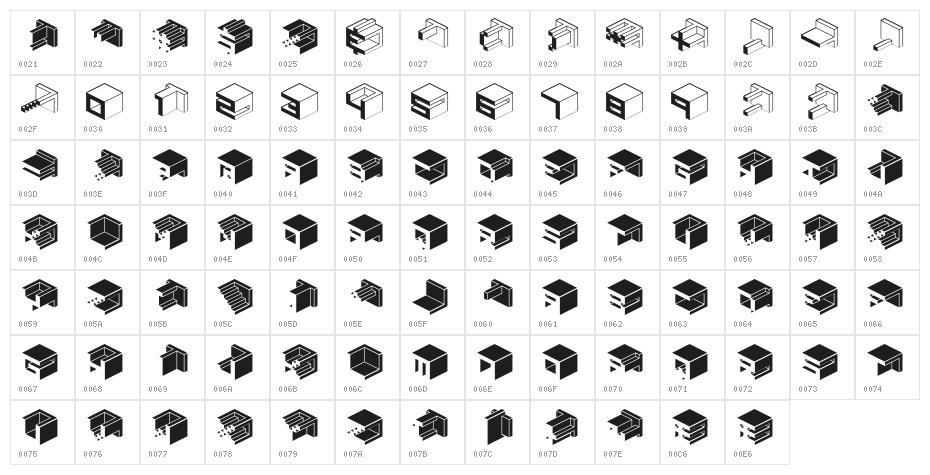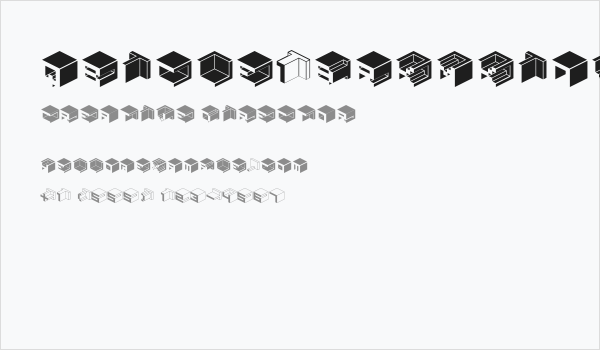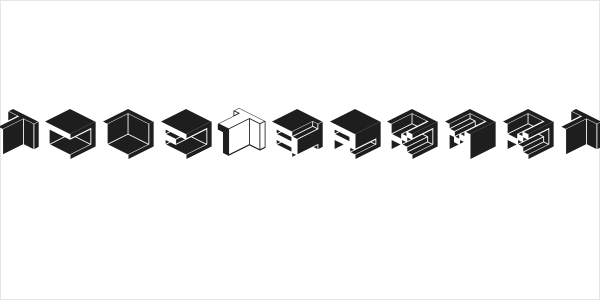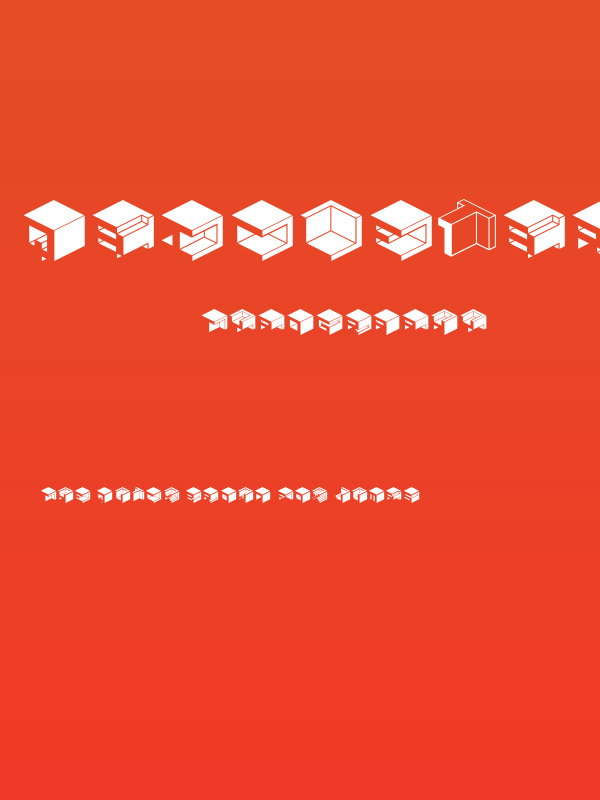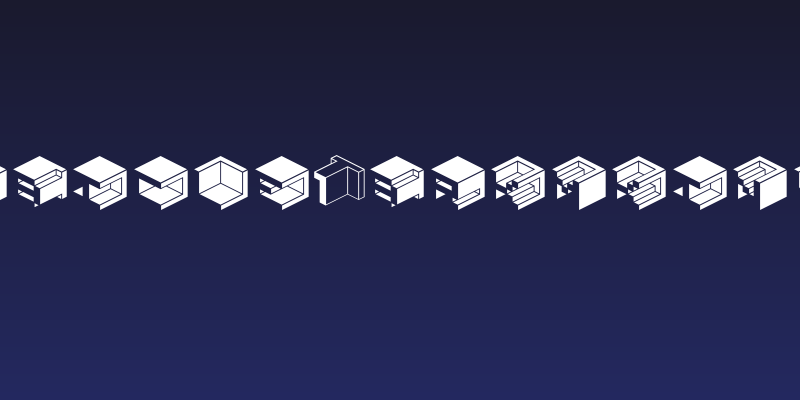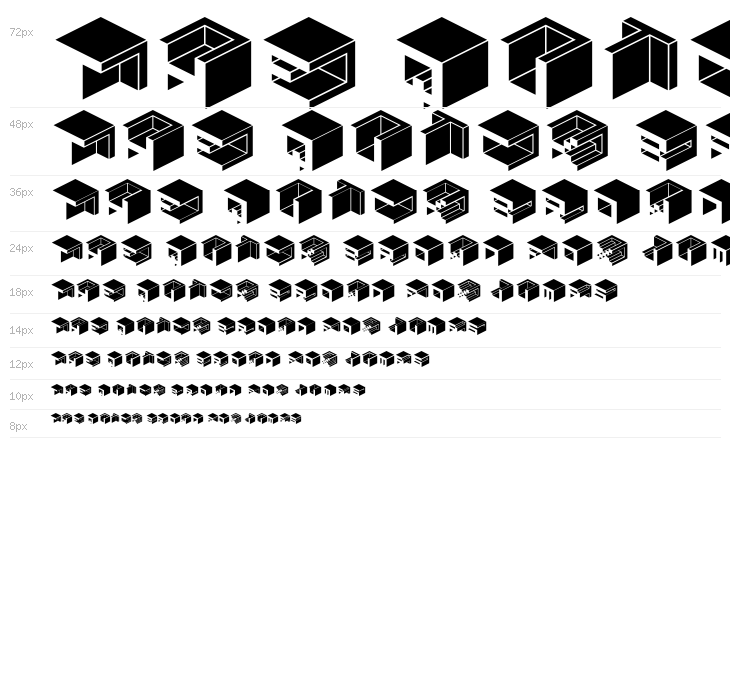
Qbicle1BRKMKinv Font
Qbicle1BRKMKinv Description
This font features a unique and modern design with each character resembling a three-dimensional cube. The letters and numbers are constructed with bold, geometric shapes, giving them a distinct architectural appearance. The use of negative space within the cubes adds an intriguing visual depth, making the characters appear as if they are part of a complex structure. This font is highly stylized, with each character maintaining a consistent cubic form, yet differing in the arrangement of lines and spaces to represent different letters and numbers. The overall look is futuristic and innovative, suitable for projects that require a standout, unconventional typeface.
| Proposed Projects | Ideal for architectural branding, futuristic designs, tech-related projects, and innovative advertising campaigns. |